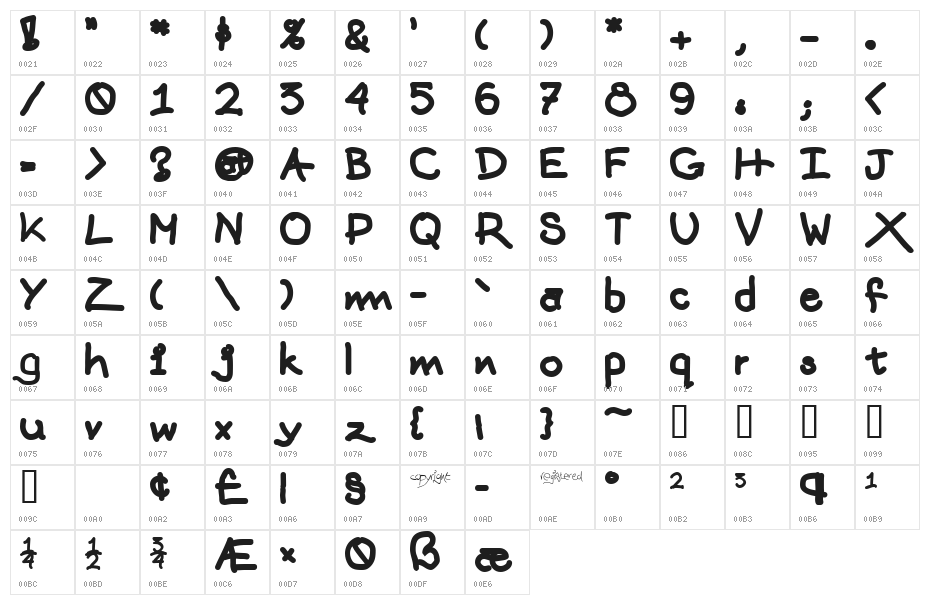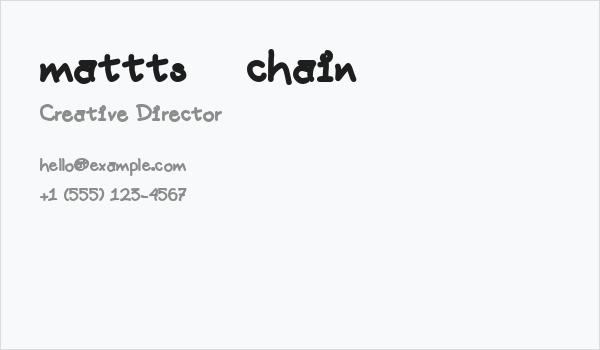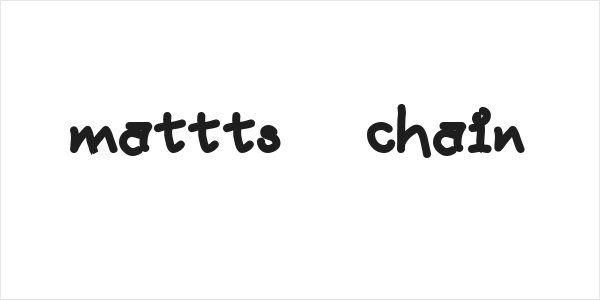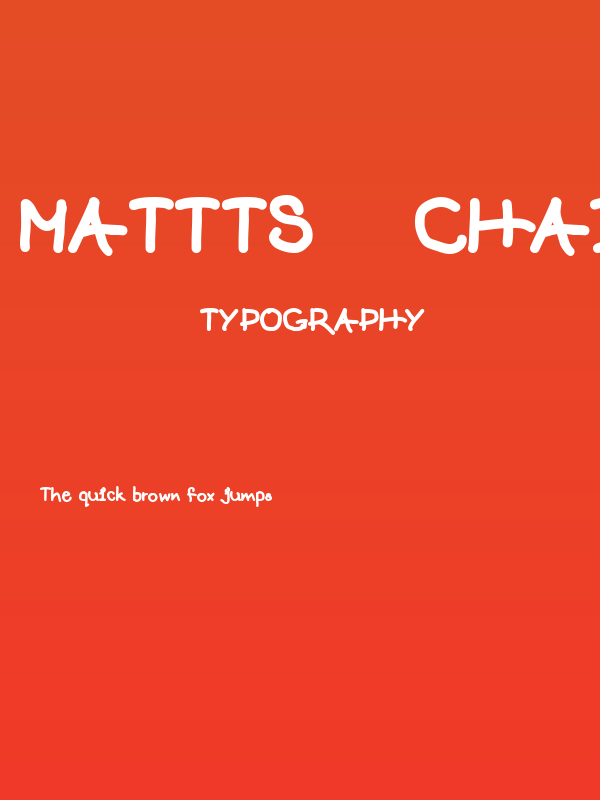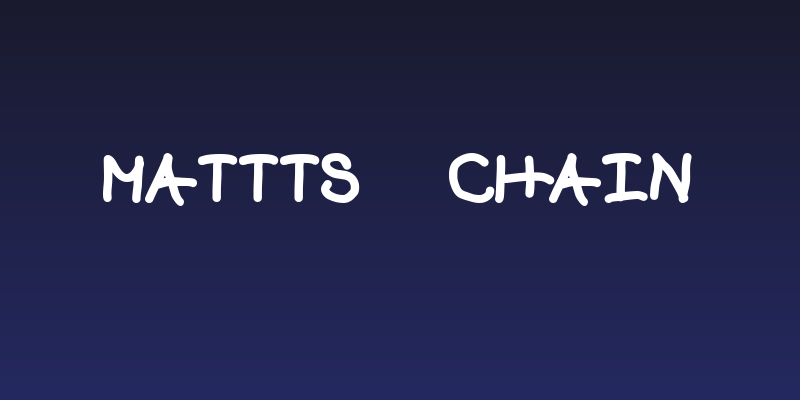
mattts chain Font
mattts chain Description
This playful and bold font features a hand-drawn style with a whimsical and casual appearance. The characters are rounded and slightly irregular, giving them a friendly and approachable feel. The uppercase and lowercase letters maintain a consistent style, with the lowercase letters having a slightly more exaggerated and playful form. The numbers and special characters follow the same design principles, ensuring a cohesive look across all elements. The font's thick strokes and rounded edges make it highly legible, even at smaller sizes, while its unique style adds a touch of personality to any project.
| Proposed Projects | Ideal for children's books, playful branding, casual invitations, and creative posters. |